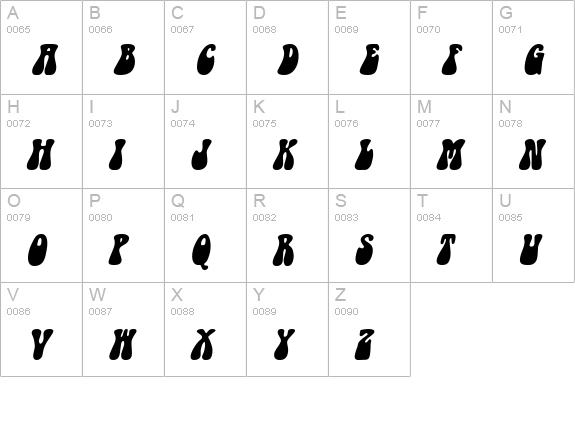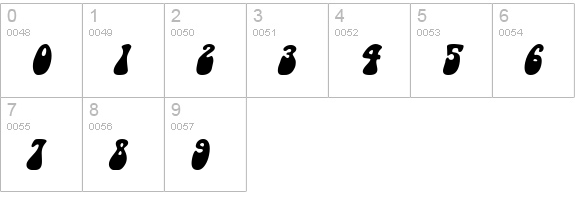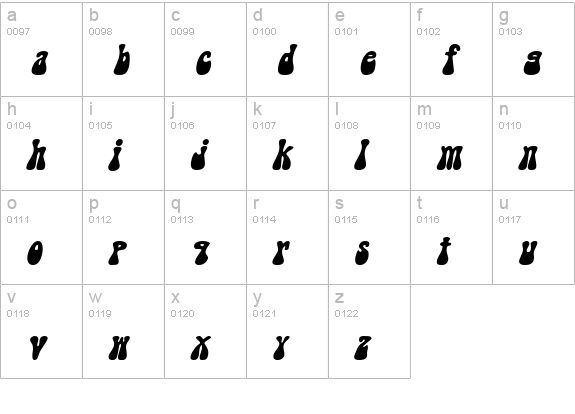
Groovy Italic is a distinctive, italic variant in the Groovy typeface family \xE2\x80\x94 well suited to design and typography projects.
Introducing Groovy Italic font - a sleek and stylish typeface that brings a touch of elegance to any design project. With its unique italicized style, Groovy exudes a sense of modernity and sophistication. Perfect for adding a chic and contemporary flair to logos, branding, invitations, and more. What's even better? Groovy Italic font is available for free download at FontsMarket.com! Don't miss out on the opportunity to enhance your designs with this eye-catching font that effortlessly combines flair and functionality. Download Groovy Italic today and elevate your projects to the next level of creativity.